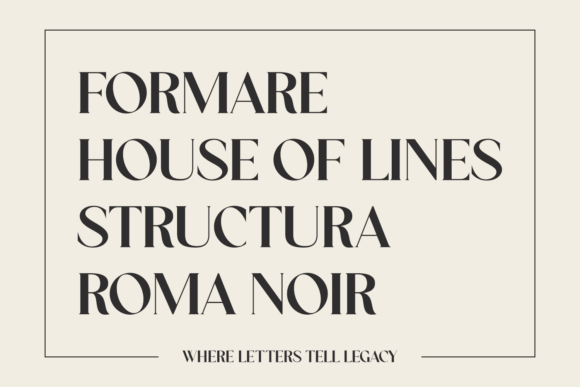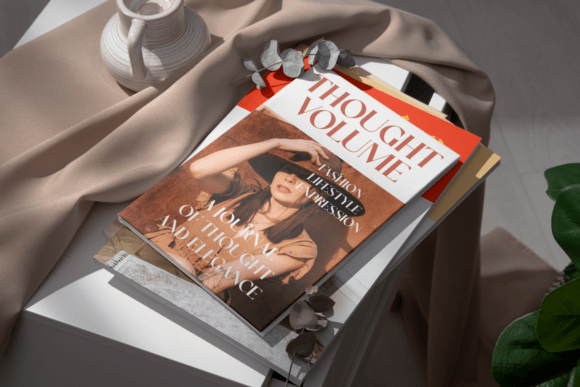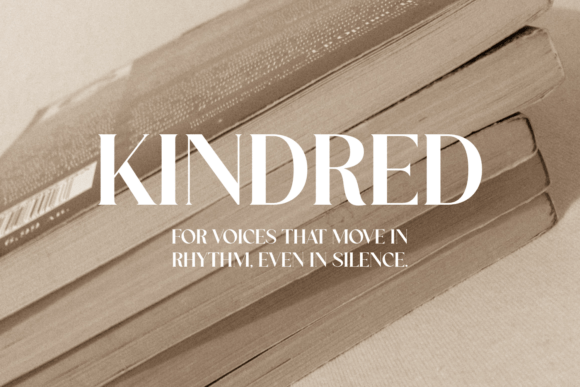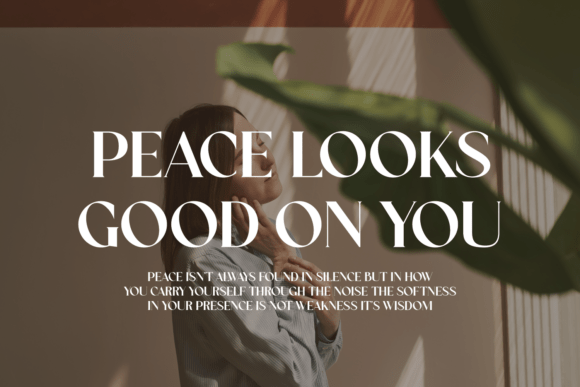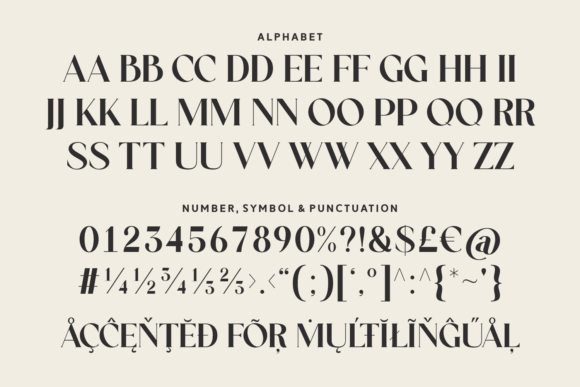
Introduction to Inner Bloom Font
Inner Bloom is a striking modern display serif that commands attention with its tall letterforms, high contrast strokes, and graceful curves.
This font exudes confidence and luxury, making it ideal for fashion branding, editorial design, logo work, and high-end marketing With its bold elegance, Inner Bloom helps your message bloom with sophistication and strength.